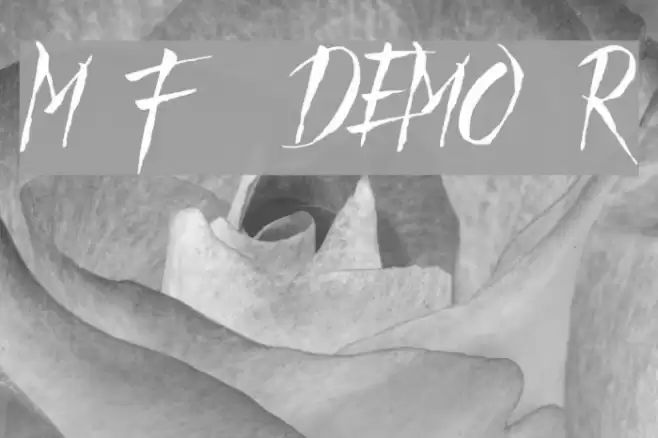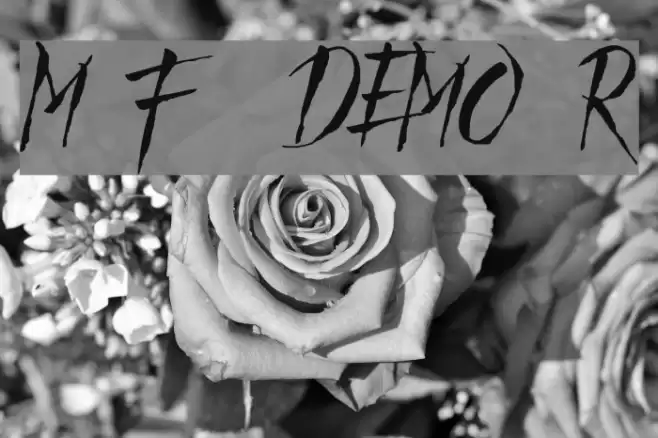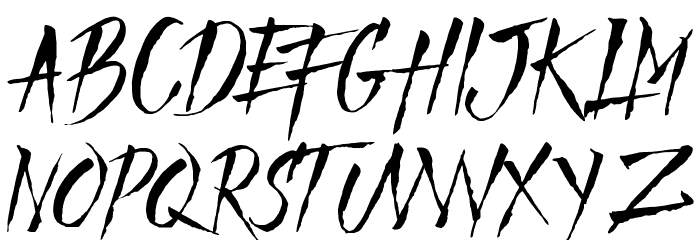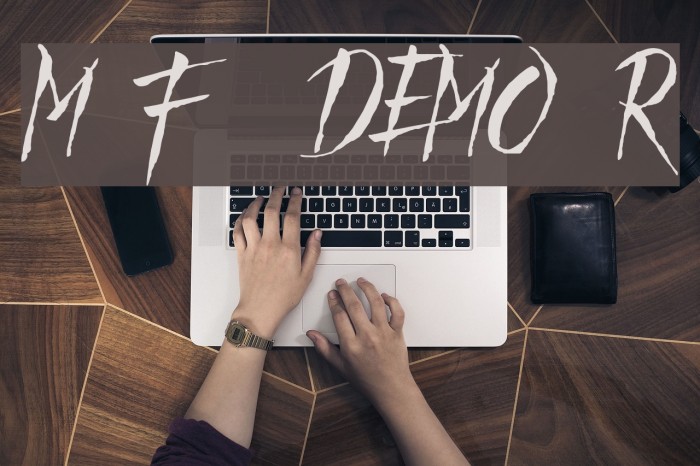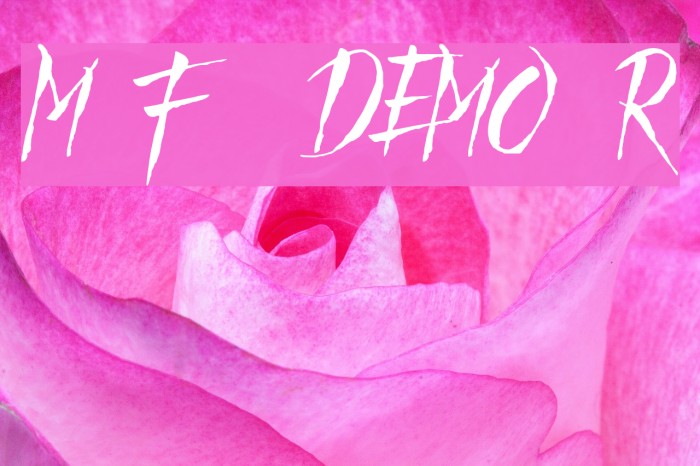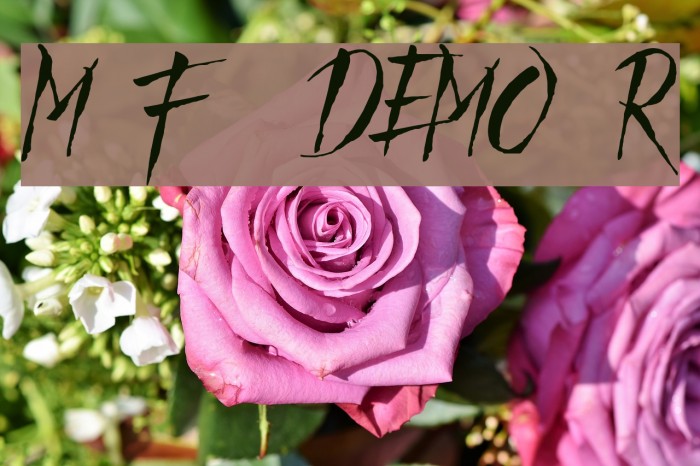
Mad Faith - DEMO Regular Font
Mad Faith - DEMO Regular Description
This font features a bold, expressive style with sharp, angular strokes that give it a dynamic and energetic appearance. The letters are crafted with a sense of movement, resembling brush strokes with pointed ends and varying thickness. This creates a sense of urgency and intensity, making it ideal for attention-grabbing designs. The uppercase letters are particularly striking, with a consistent height and a slightly condensed form that enhances their impact. The overall design is modern and edgy, suitable for projects that require a strong visual statement.
A bold, dynamic font with sharp, angular strokes and a modern, edgy style from Uncategorized fonts.
- Proposed Projects: Ideal for posters, album covers, branding for edgy products, and any design needing a bold statement.
- Character Spacing: Tight
- Overall Style: Modern, Edgy